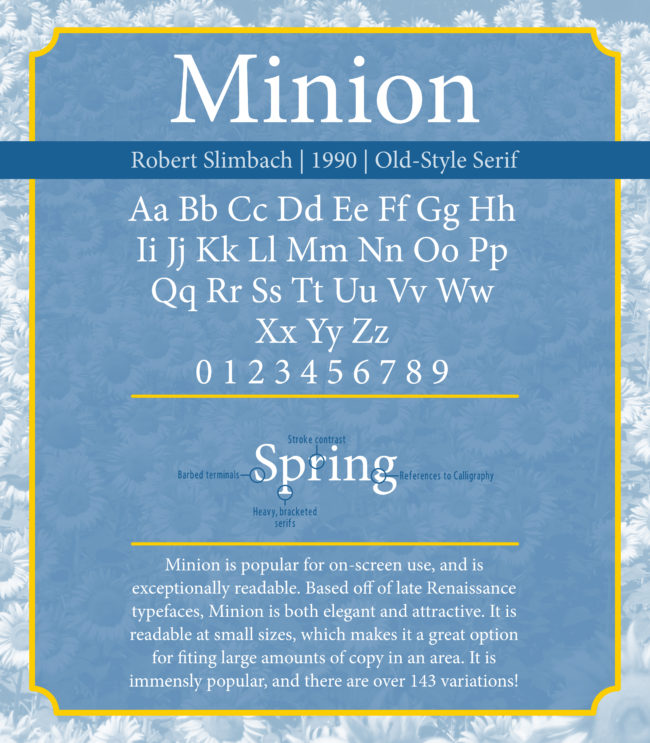
Font of the Week – Minion
Minion, designed by Robert Slimbach in 1990, is a serif typeface composed in the classical tradition. Slimbach was inspired by the late Renaissance-era and depicted Minion as a timeless font. Minion is one of those typefaces that we have all seen, but rarely appreciate. With its many practical benefits and aesthetic applications—this font deserves some serious attention! It adapts well to many different platforms and is suitable for almost any use.